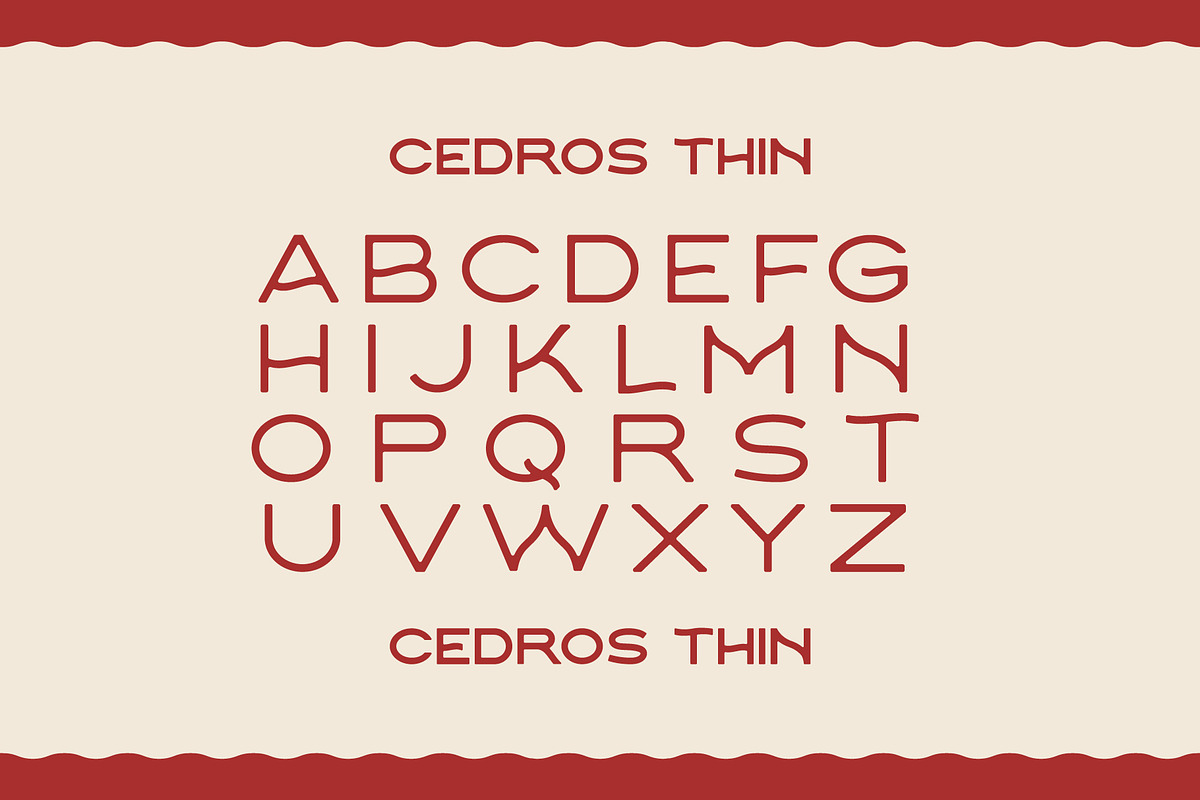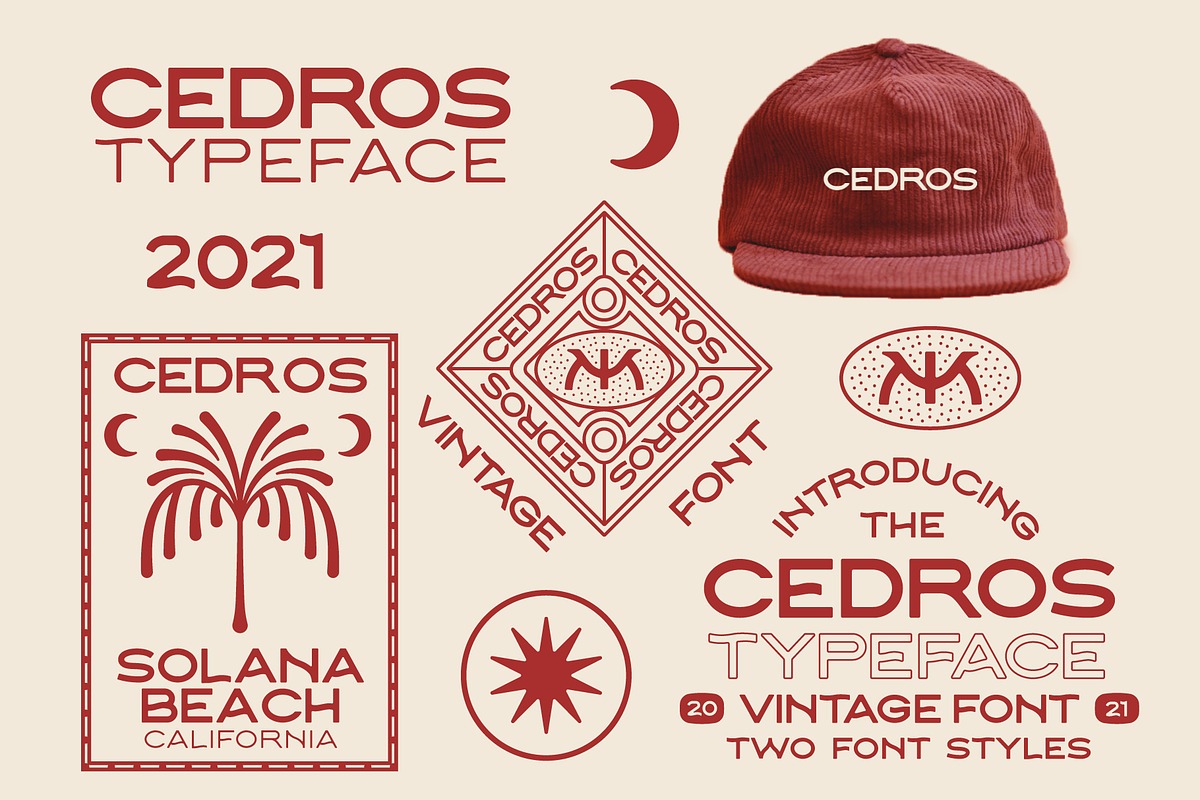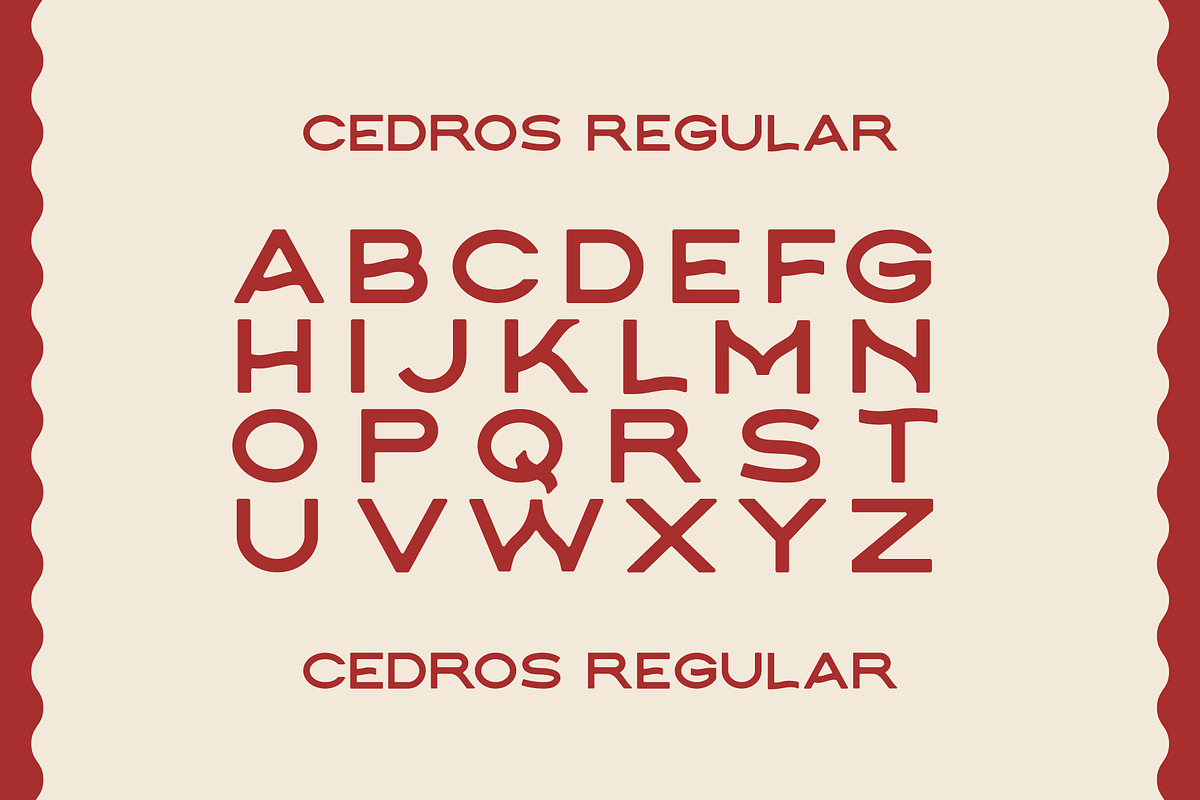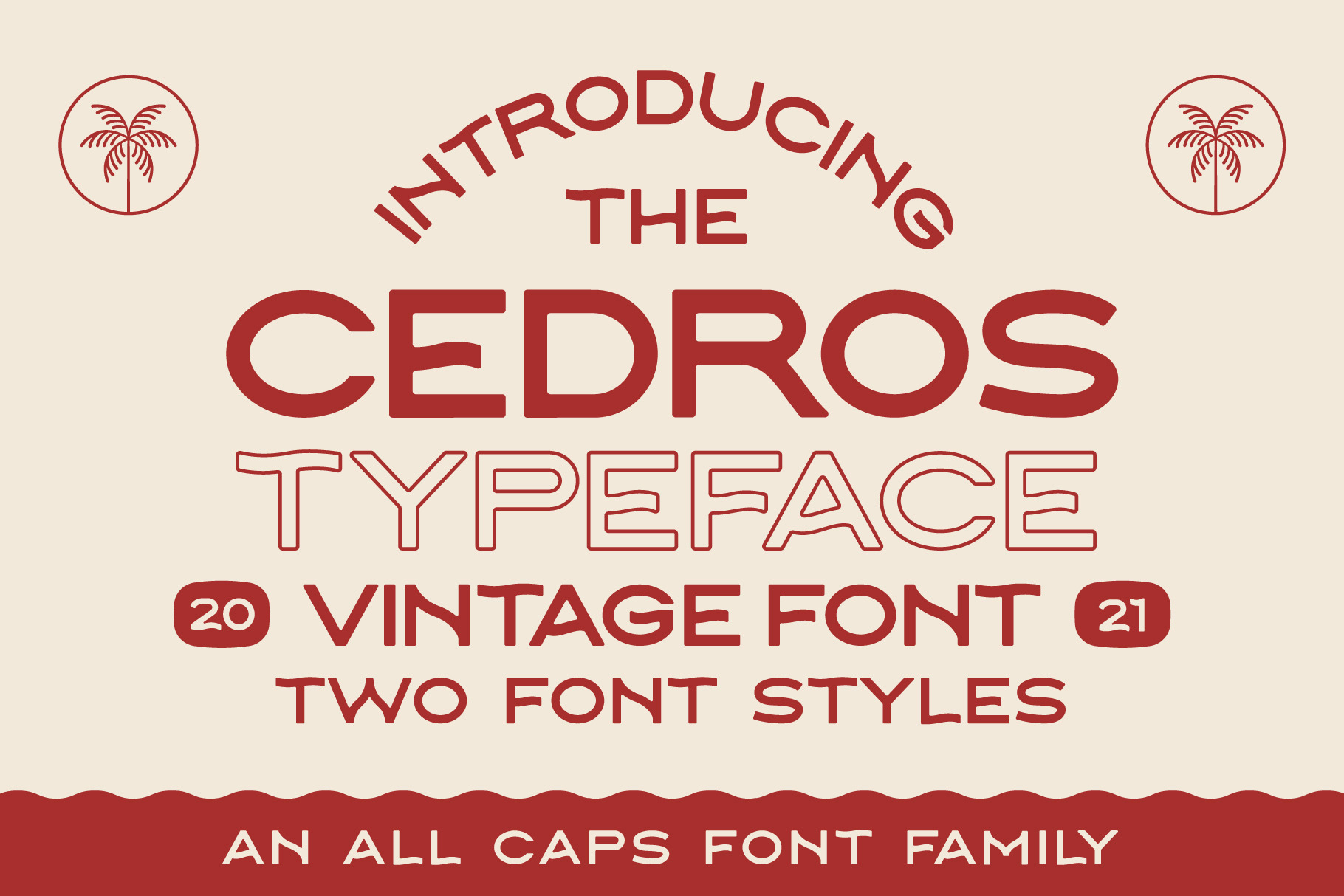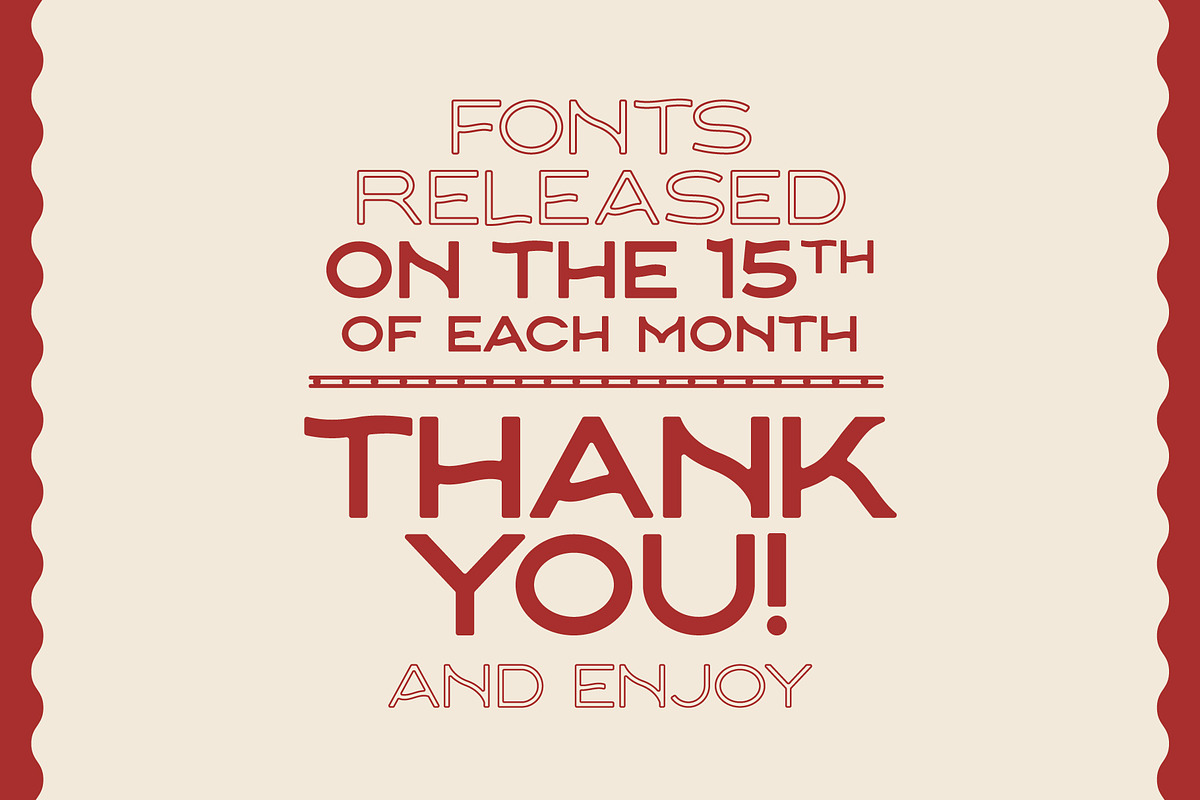
Cedros Typeface
The Cedros typeface is a clean, sans serif font that features subtly stylized letters. This typeface is perfect for any branding project, headlines, and short body copy. This typeface comes with two font styles including Cedros Regular and Cedros Thin.